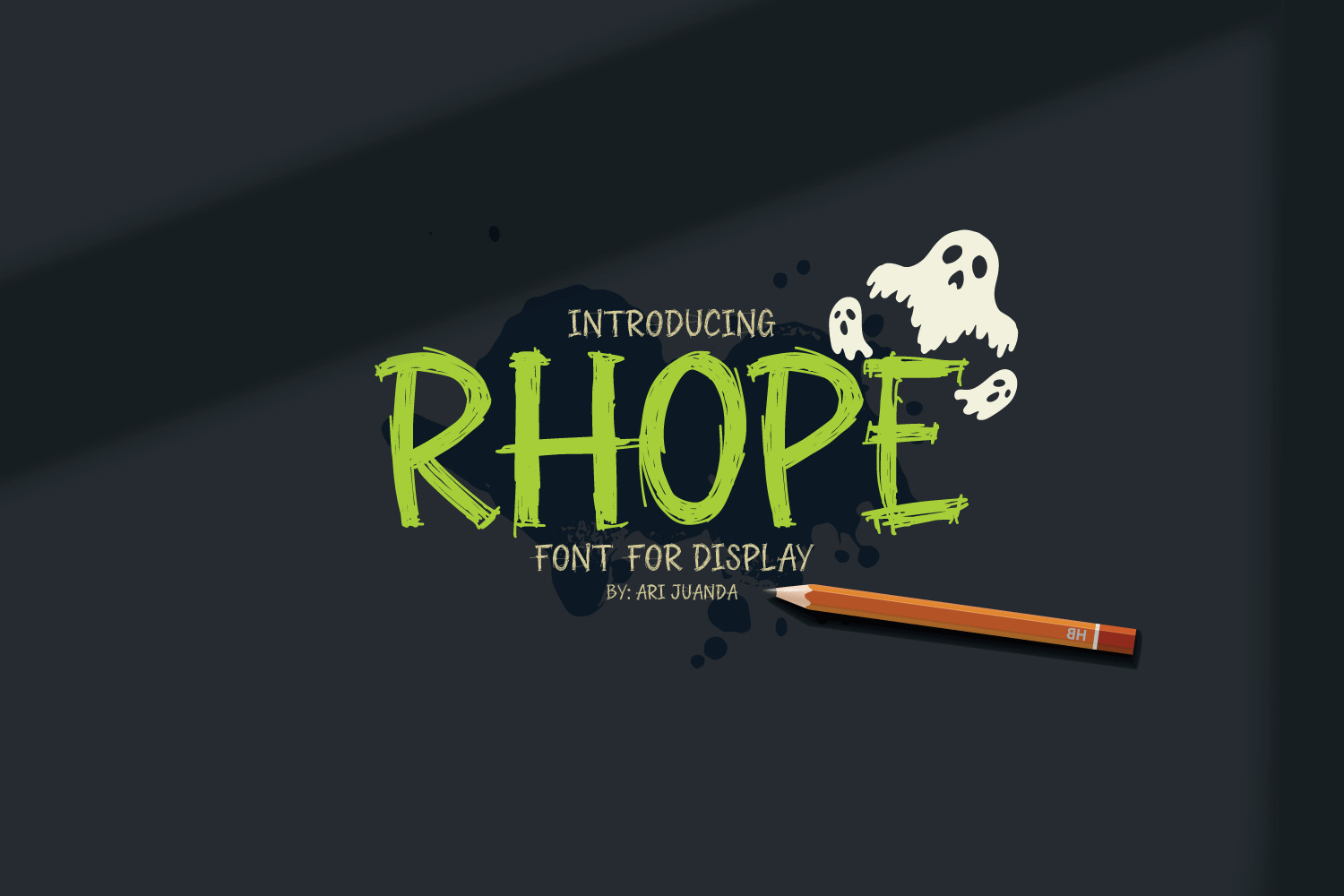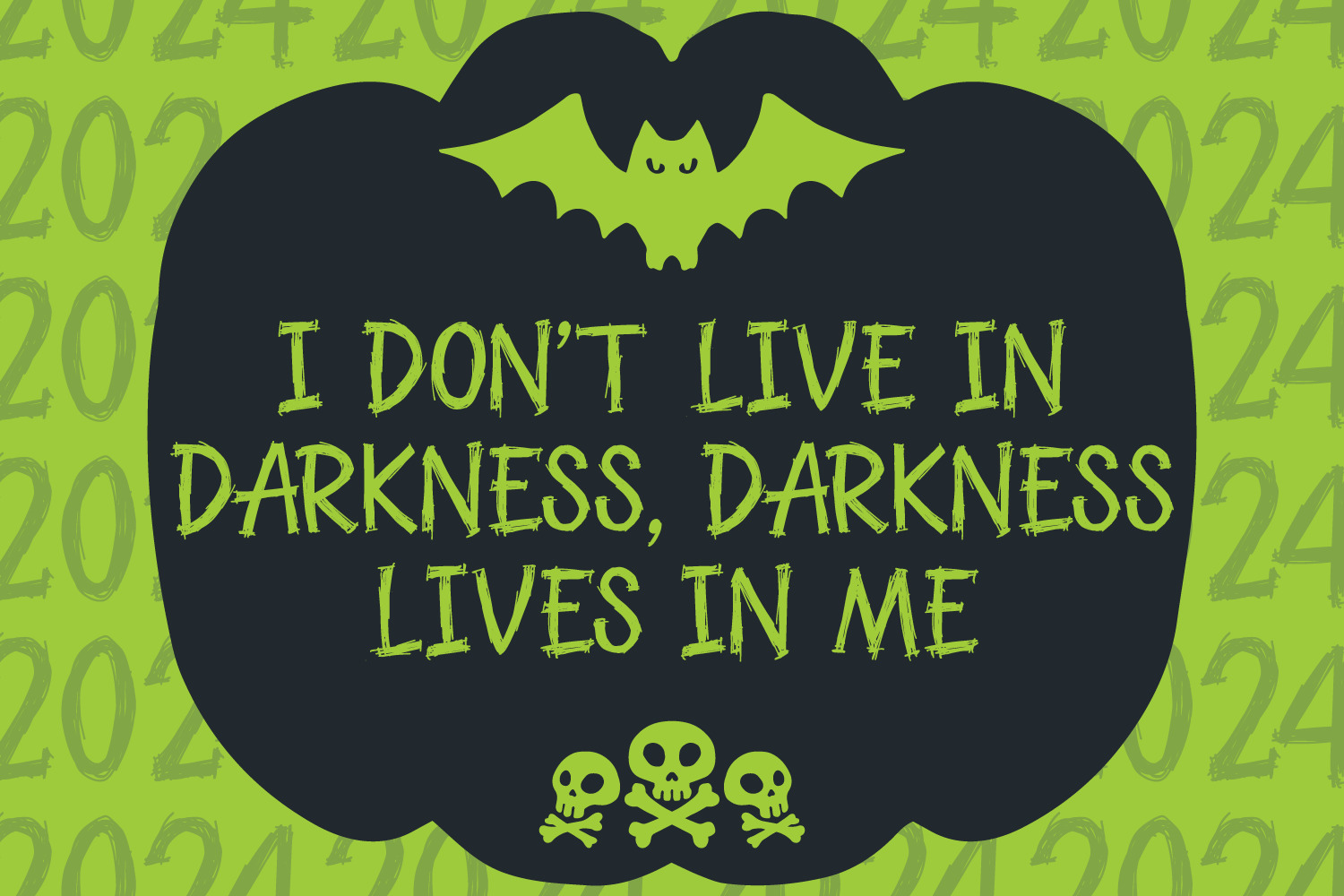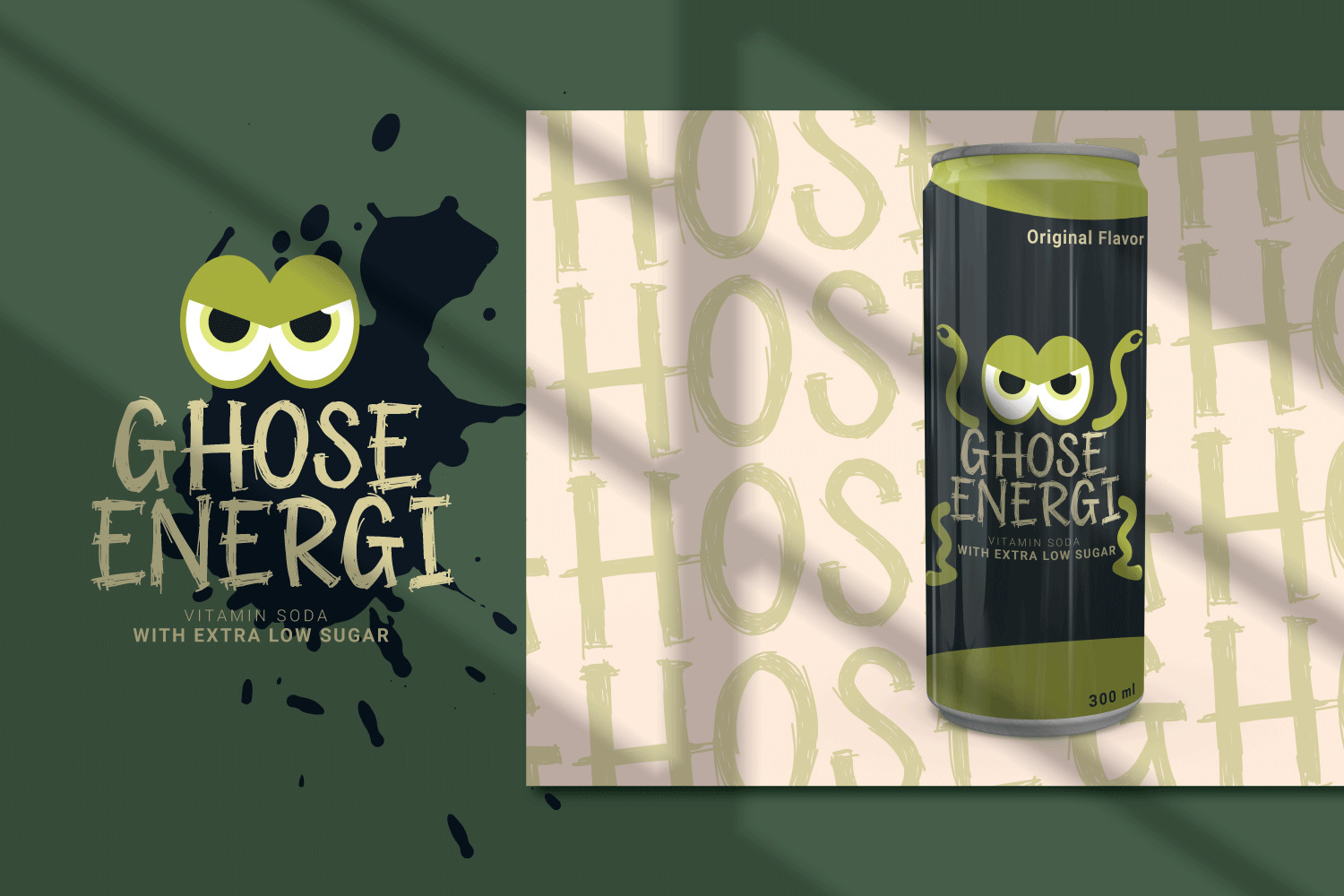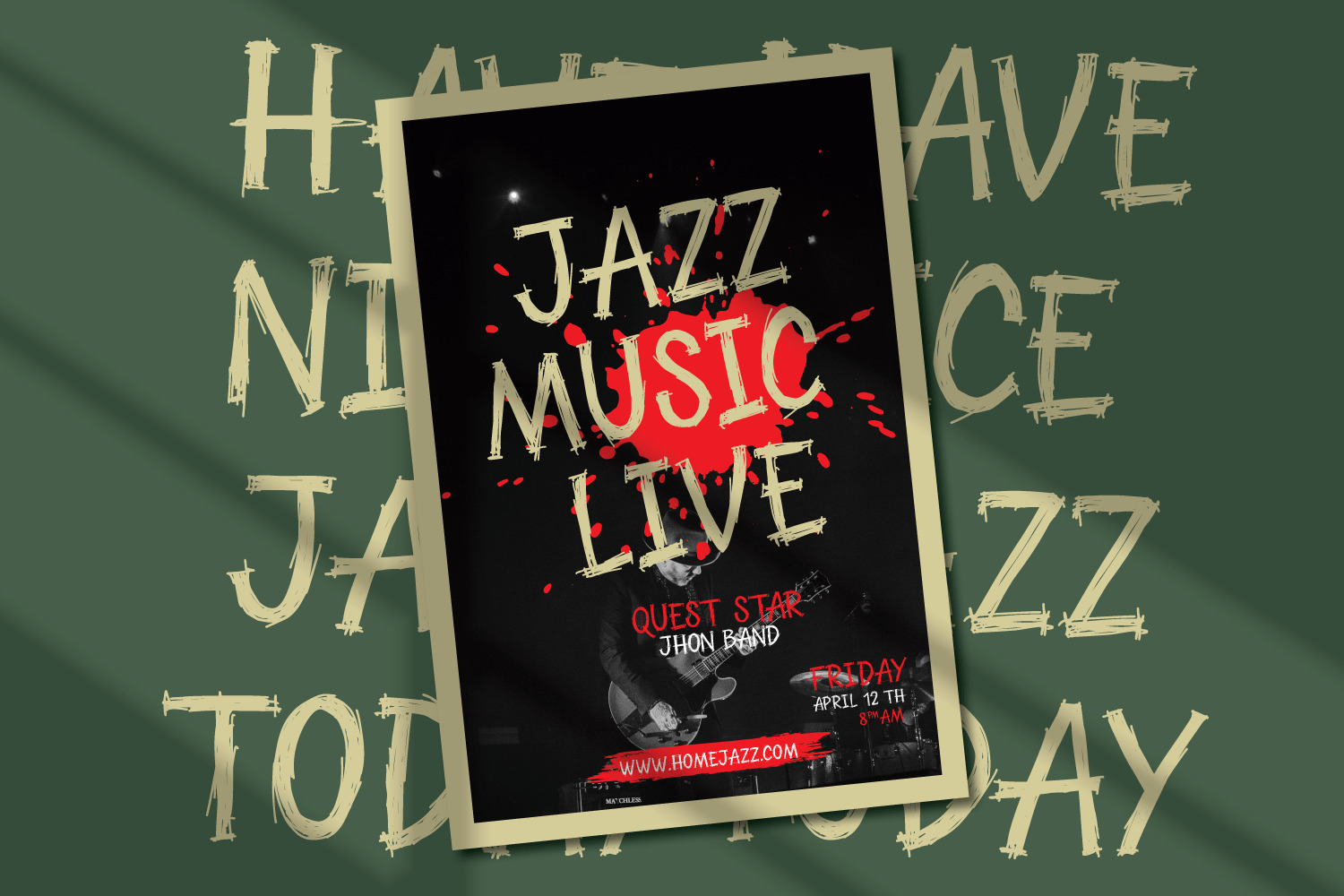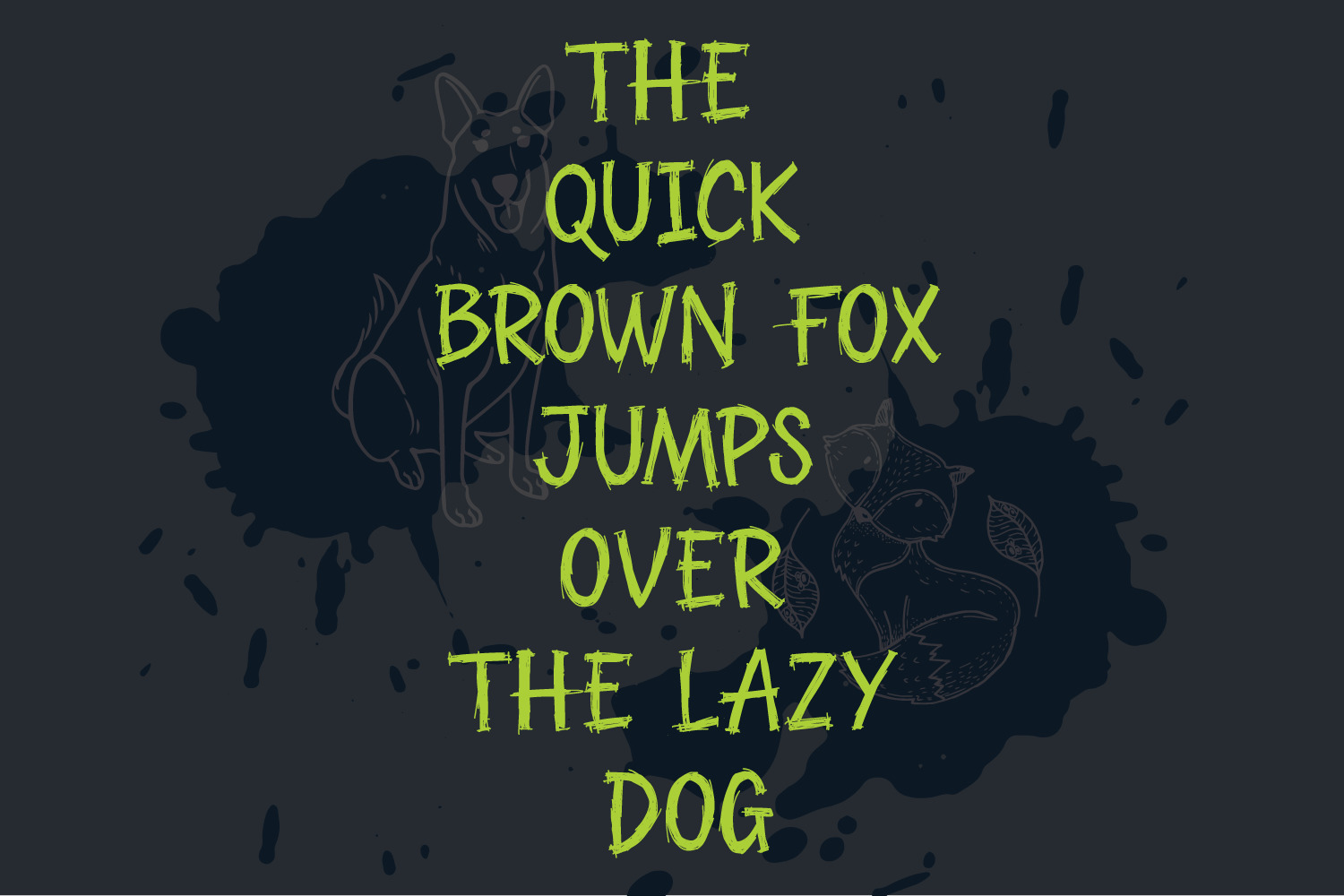
Rhope Font
Rhope is an original loosely handwritten skeksa font with a balanced appearance. Rhope is perfect for use in all your projects that require a natural, easy-to-read handwritten font.